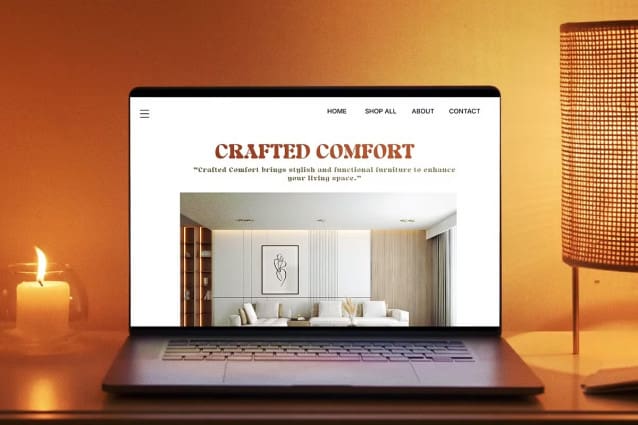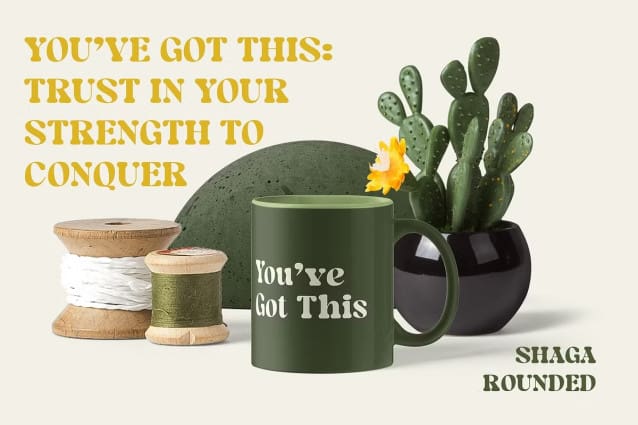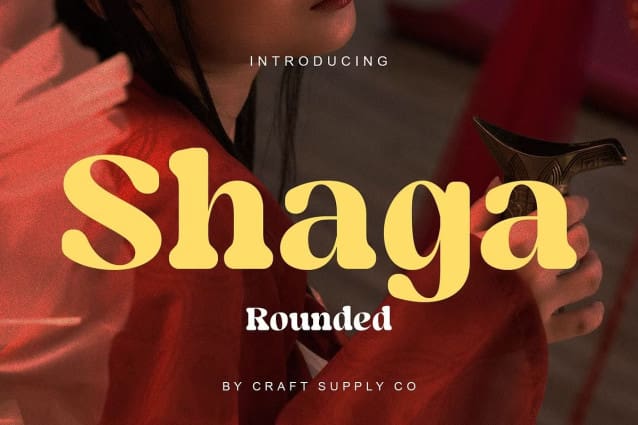
Shaga Rounde Font
Shaga Rounded Font is a striking serif font that blends classic slab serifs with soft, rounded shapes to create a design that is both strong and approachable. The bold slab serifs provide a stable and grounded impression, while the rounded curves soften the edges, giving the font a friendly, warm feel. This harmonious combination of strength and softness evokes a nostalgic retro vibe while maintaining a modern, relevant appeal.
Perfect for Nostalgic, Yet Contemporary Designs With its unique blend of boldness and warmth, Shaga Rounded is ideal for projects that seek to evoke a sense of nostalgia, such as vintage branding, retro-inspired posters, and typography influenced by past eras. The font’s timeless characteristics make it a perfect choice for designs that aim to merge classic charm with modern sensibilities, offering both visual stability and a welcoming, friendly vibe.
Versatile and Impactful Whether used in logos, headlines, packaging, or promotional materials, Shaga Rounded stands out with its balance of strength and personality. Its versatility makes it suitable for a variety of creative projects, from nostalgic branding to contemporary designs that require a touch of warmth and retro flair.